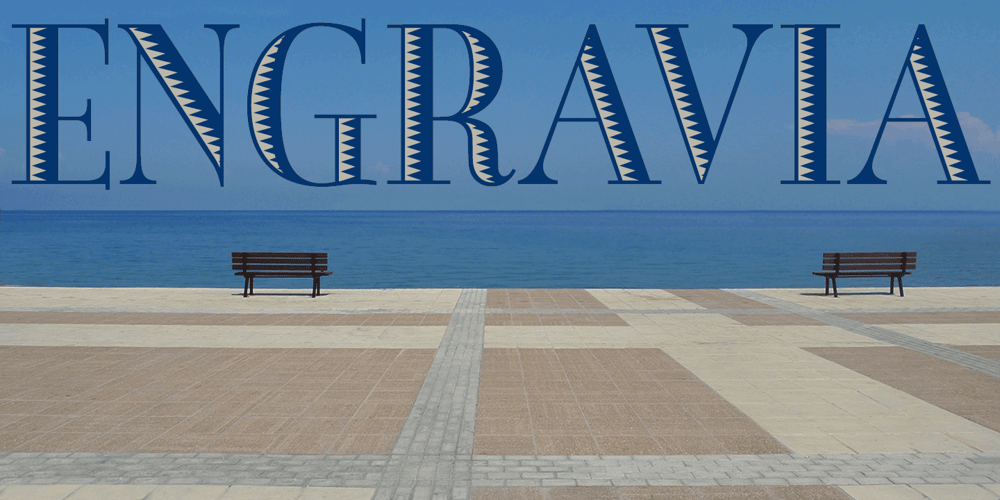
Engravia Font Family was designed by Keith Bates and published by K-Type. Engravia contains 4 styles and family package options. Engravia is a Didone display face supplied in three varieties of engraving – Inline, Shaded and Sawtooth – plus a plain basic font. All four fonts share the same spacing and kerning, so engraved characters can be overlaid onto plain ones to produce bicolor effects. All four Engravia fonts are included in the download. The typeface was developed from K-Type’s rustic Building & Loan font, redesigned and drawn with precision outlines.